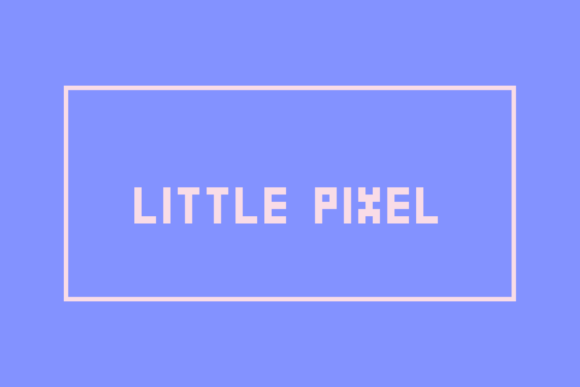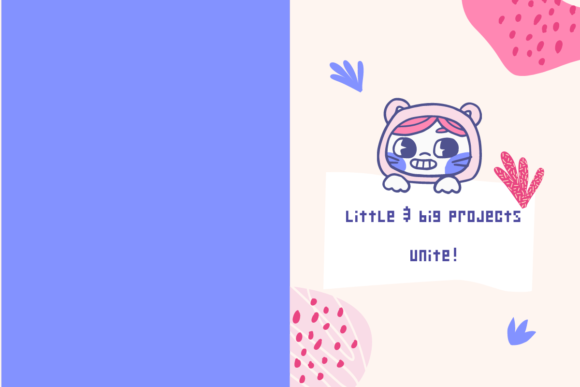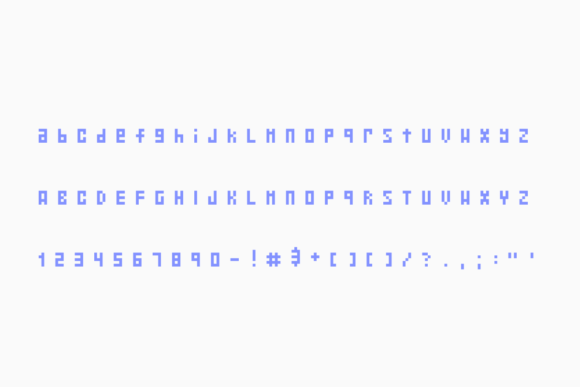
Little Pixel
About Little Pixel Font
Little pixel is a simple display font with a digital twist. Modern and almost futuristic, this font will look perfect on your most creative projects such as card games, online gaming descriptions, marketing materials for sports events, adventure books, and more!